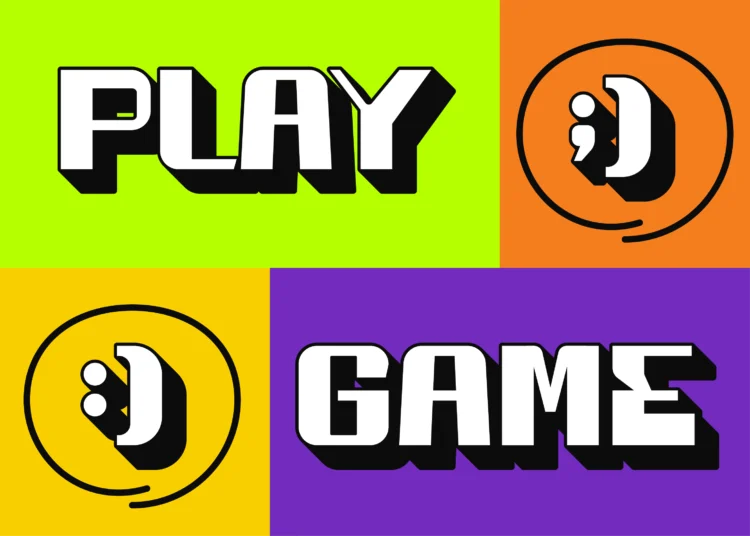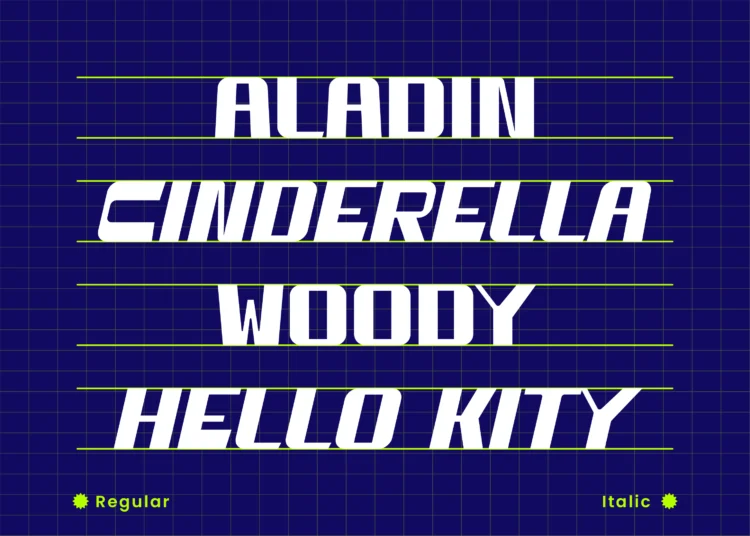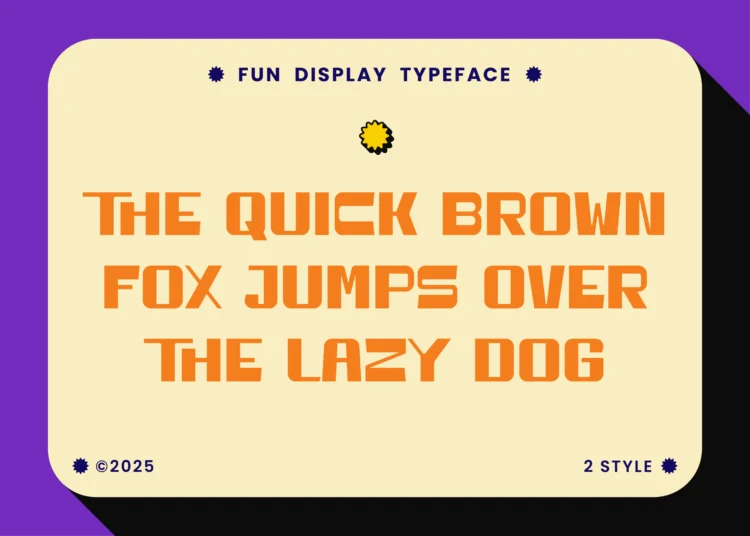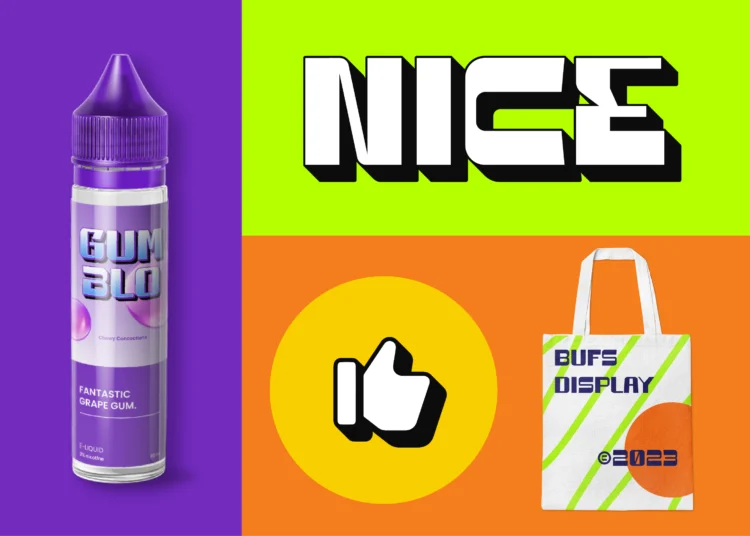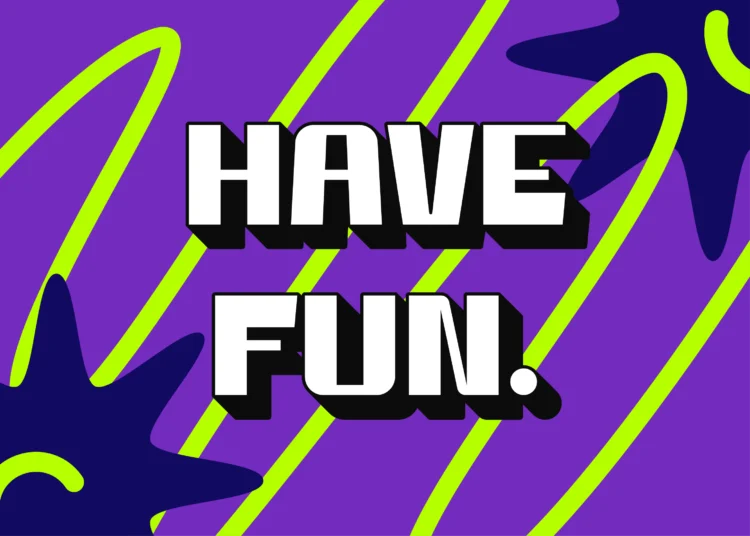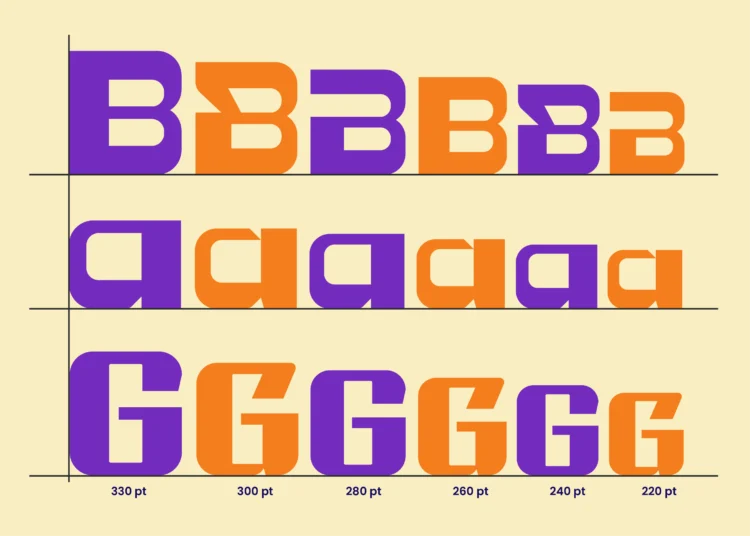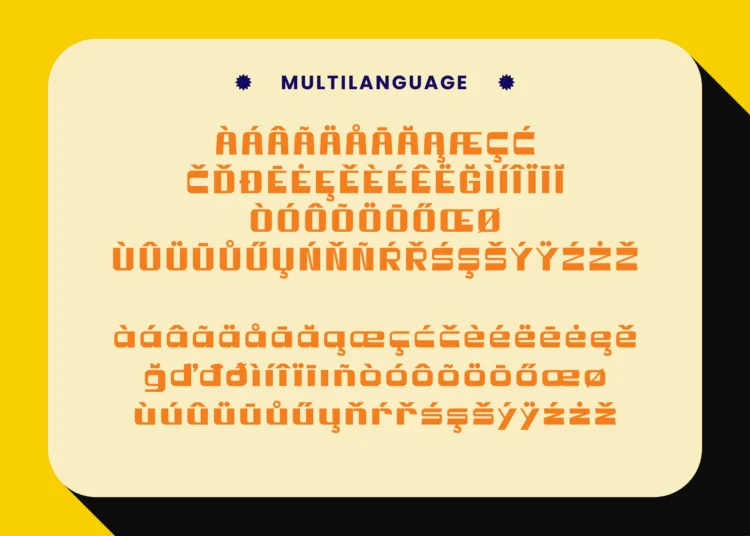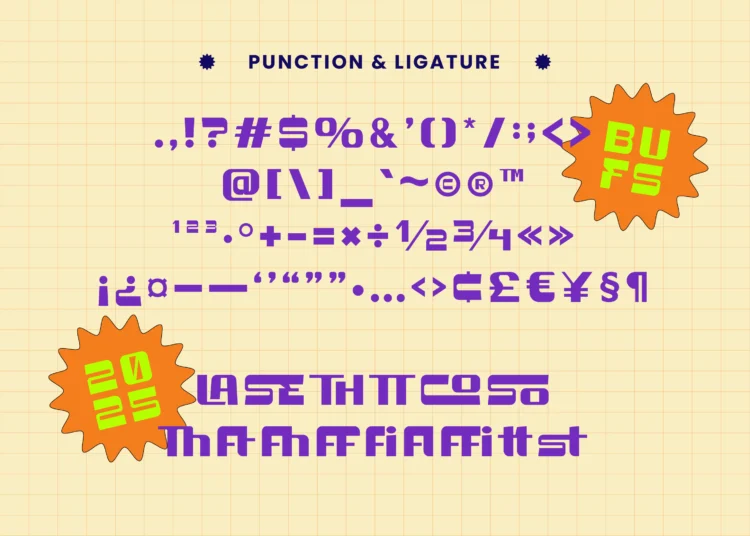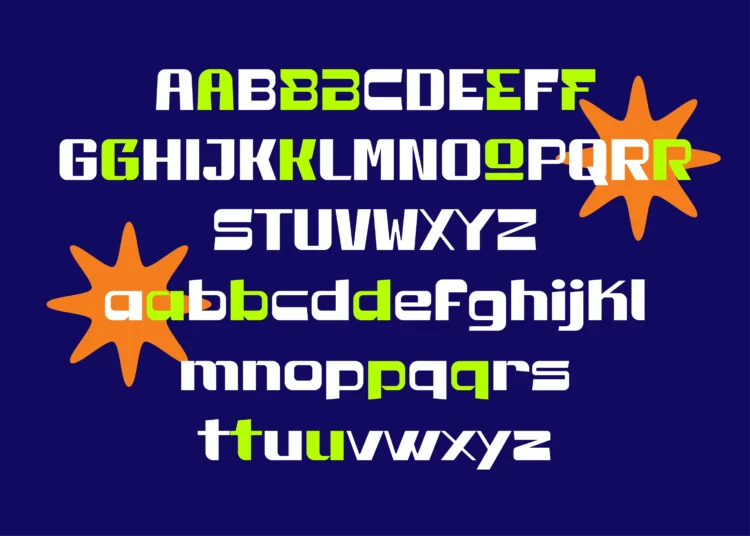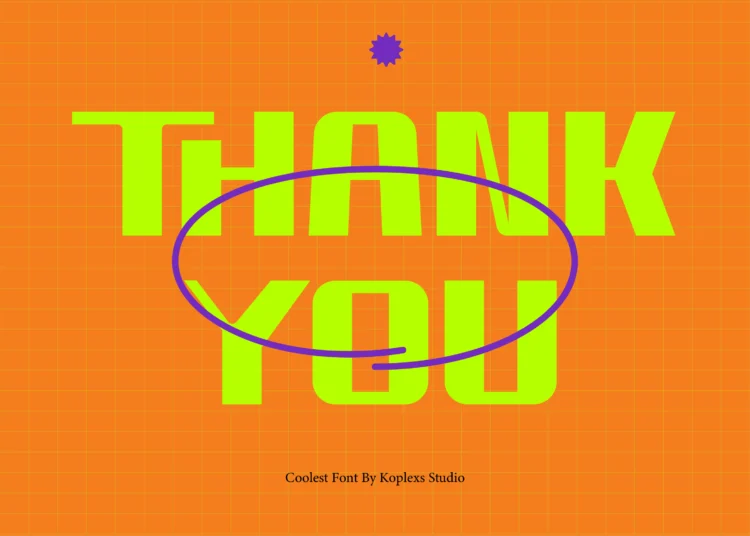
Bufs Font – Modern Futuristic Sans Serif Display Font for Gaming, Branding, Logos & Tech Design
Bufs Font is a bold, futuristic sans serif font designed to deliver strong visual impact for modern digital and print projects. Built as a powerful display font, Bufs Font combines geometric shapes, sharp edges, and confident proportions that instantly communicate innovation, energy, and technology.
This modern font is crafted for designers who need a cool font that stands out in high-contrast layouts. With Regular and Italic styles, Bufs Font gives you flexibility for dynamic compositions, motion graphics, and expressive typography systems.
Perfect as a branding font, logo font, and headline font, Bufs Font excels in bold statements. Its structure is inspired by futuristic Font, cyberpunk font, and Tech font aesthetics, making it ideal for technology-driven visuals. Whether you’re working on a game font, font game UI, or immersive digital interfaces, this cyber font delivers clarity and personality.
As part of modern font technology, Bufs Font fits seamlessly into modern tech fonts collections. It works beautifully as a sci fi font, science fonts, and science fiction font, especially for gaming titles, esports branding, posters, and digital covers. The strong letterforms also make it a reliable poster font, cover font, and bold headline font for advertising and social media.
- Alternates
- Ligatures